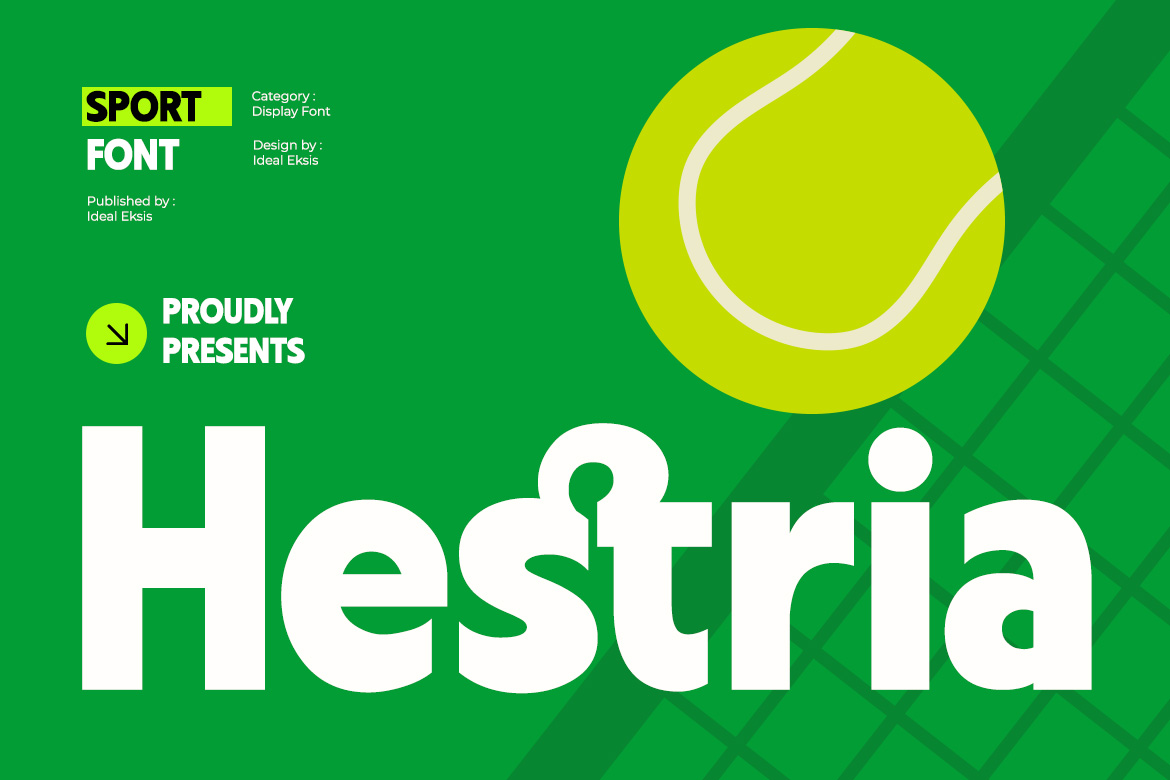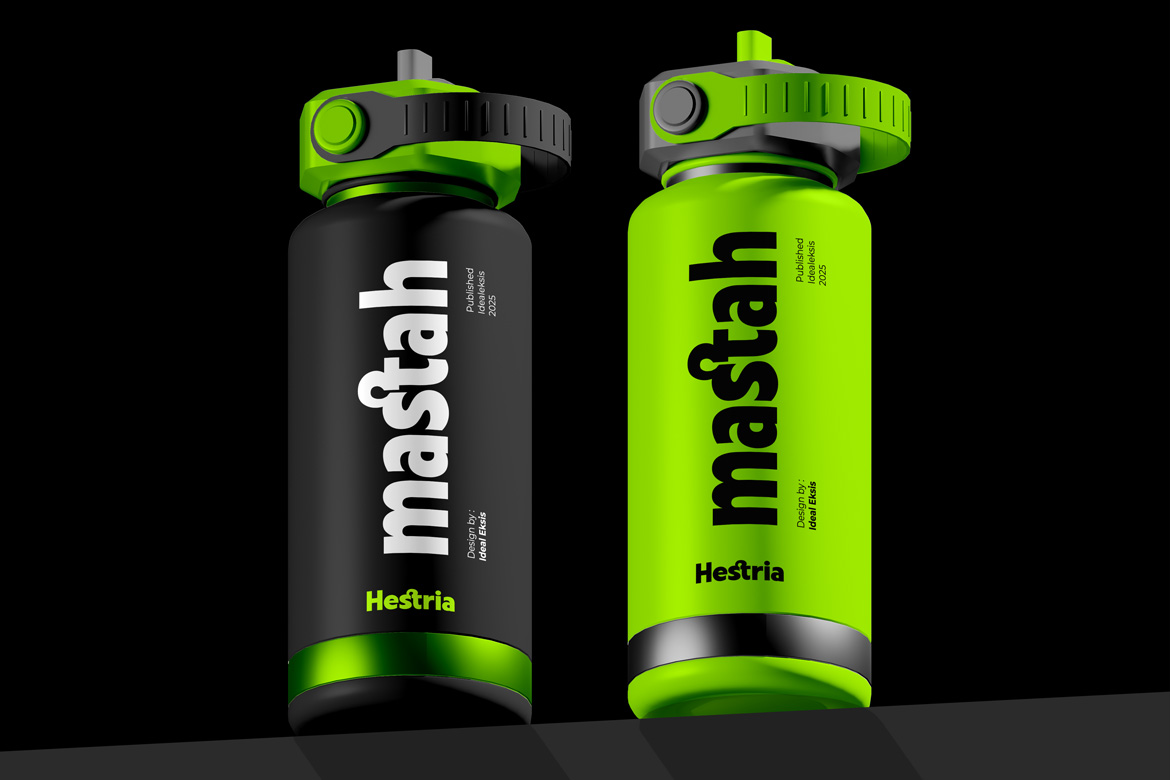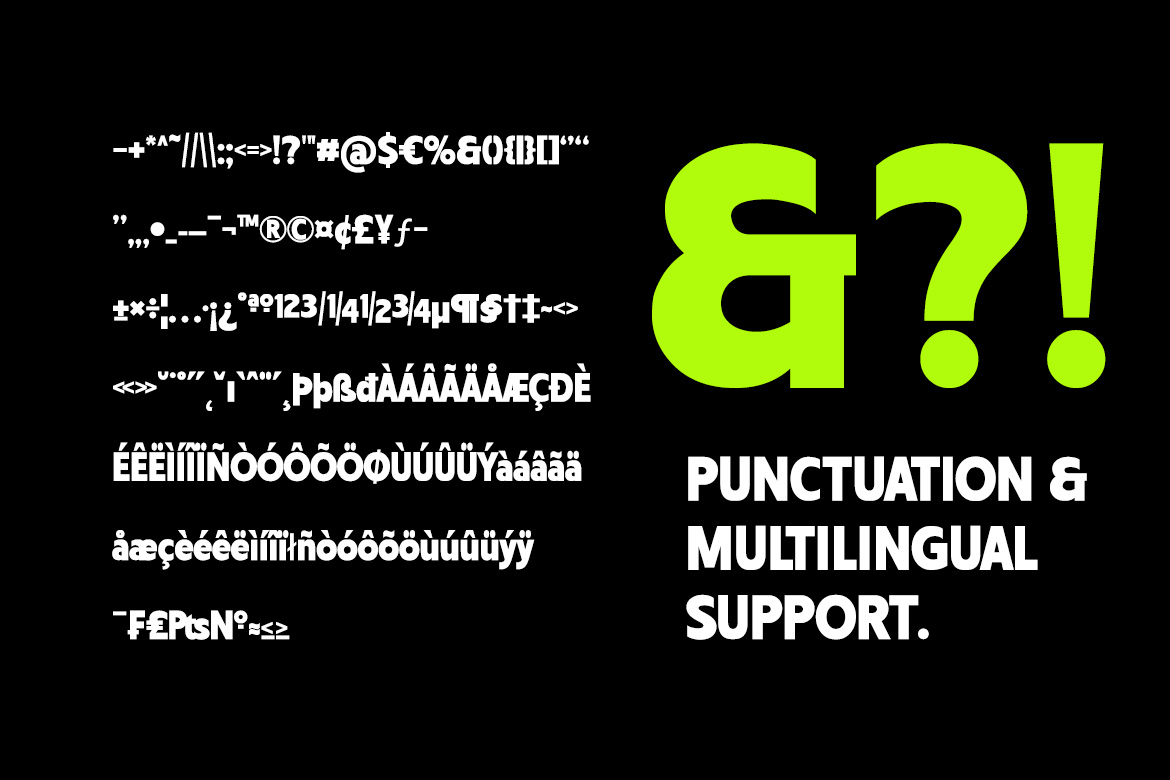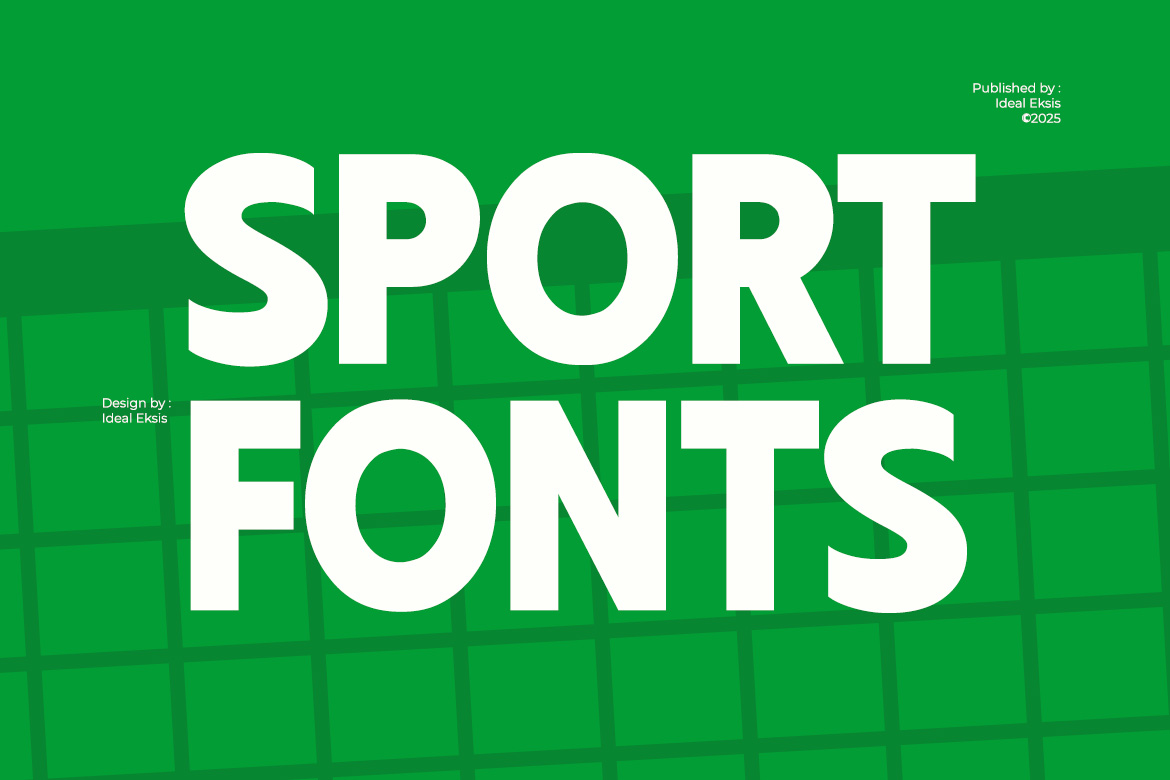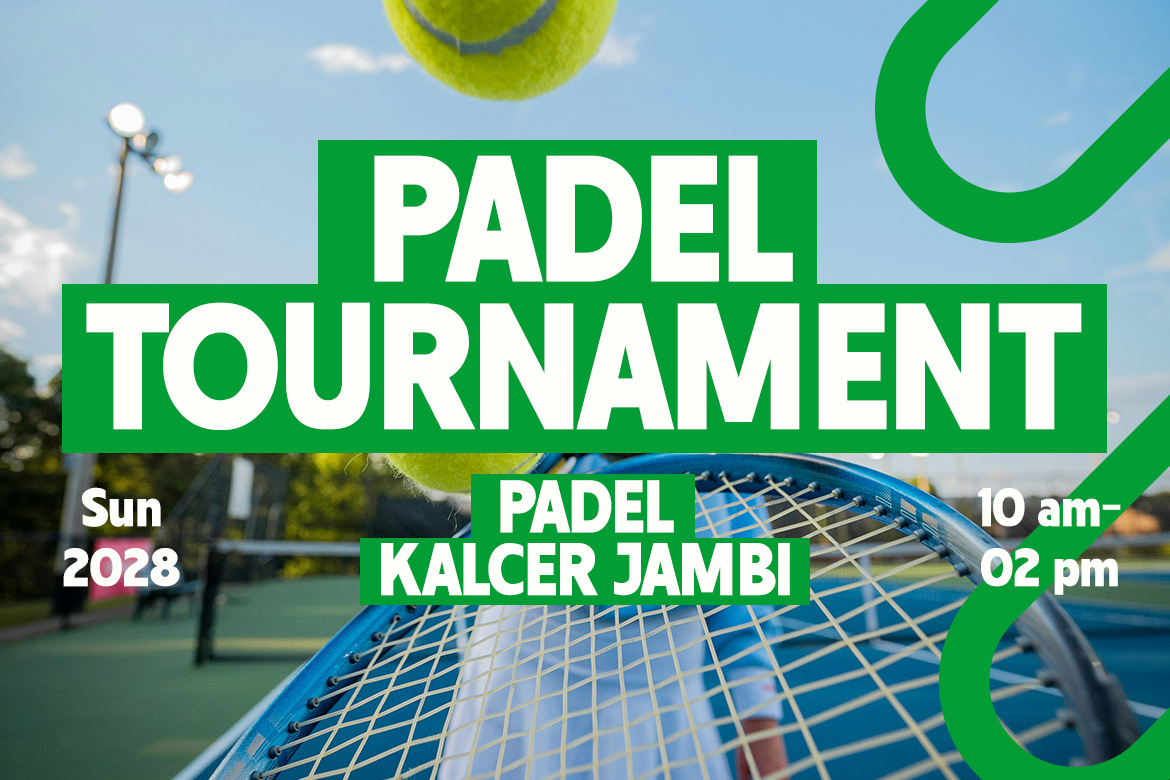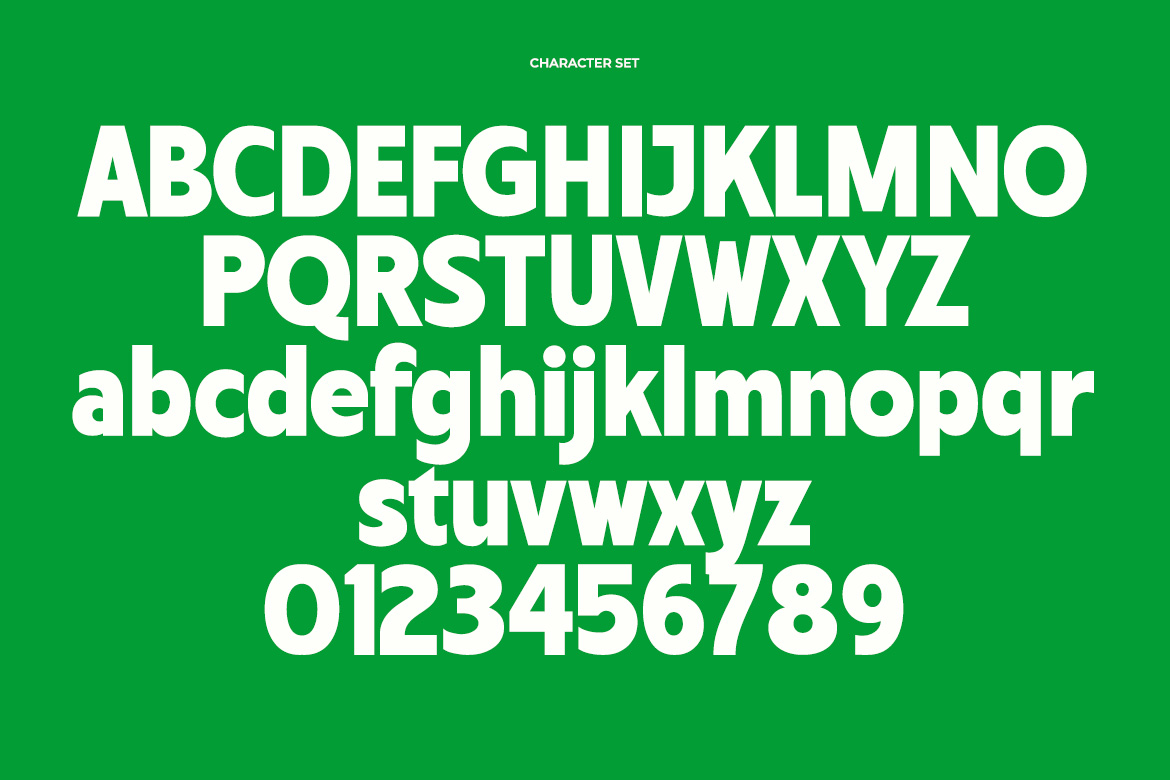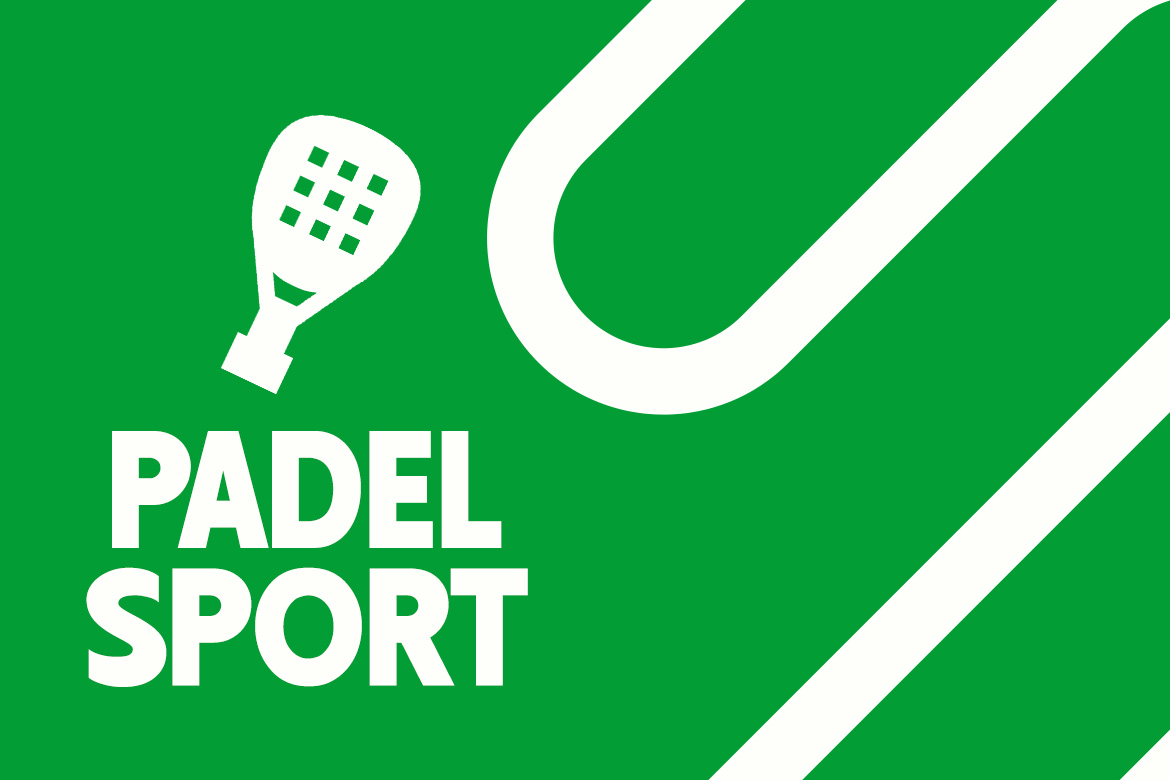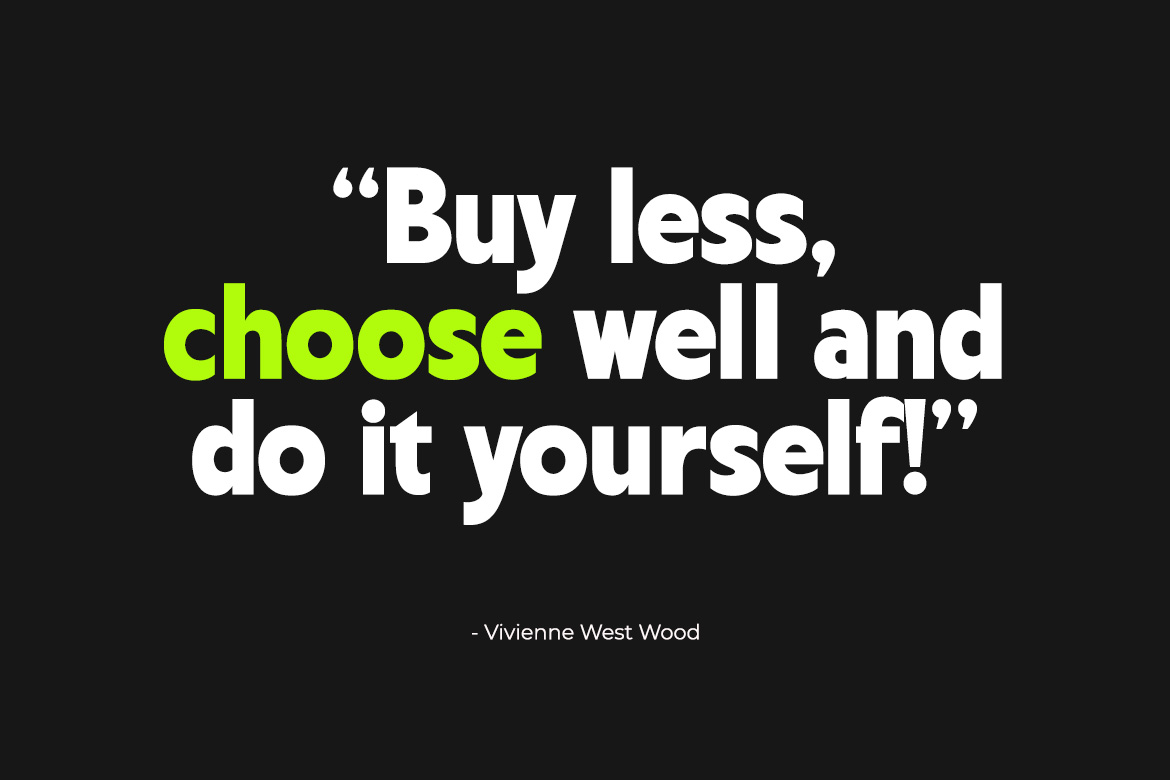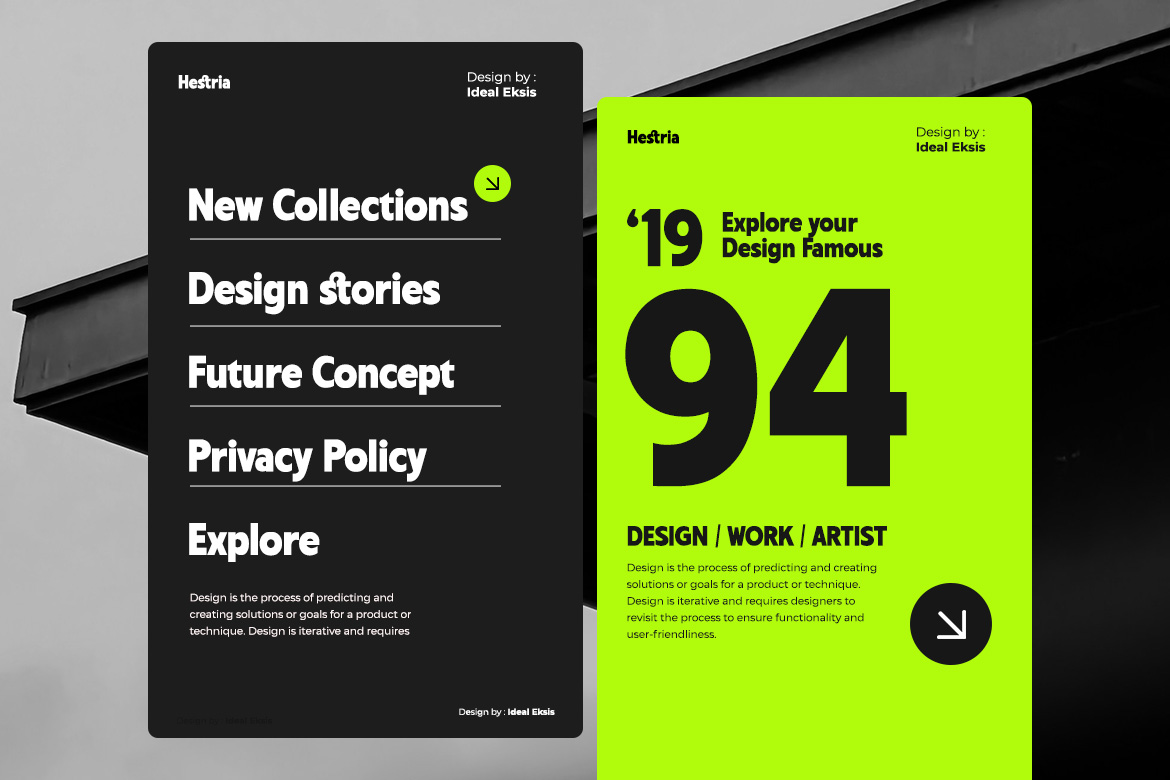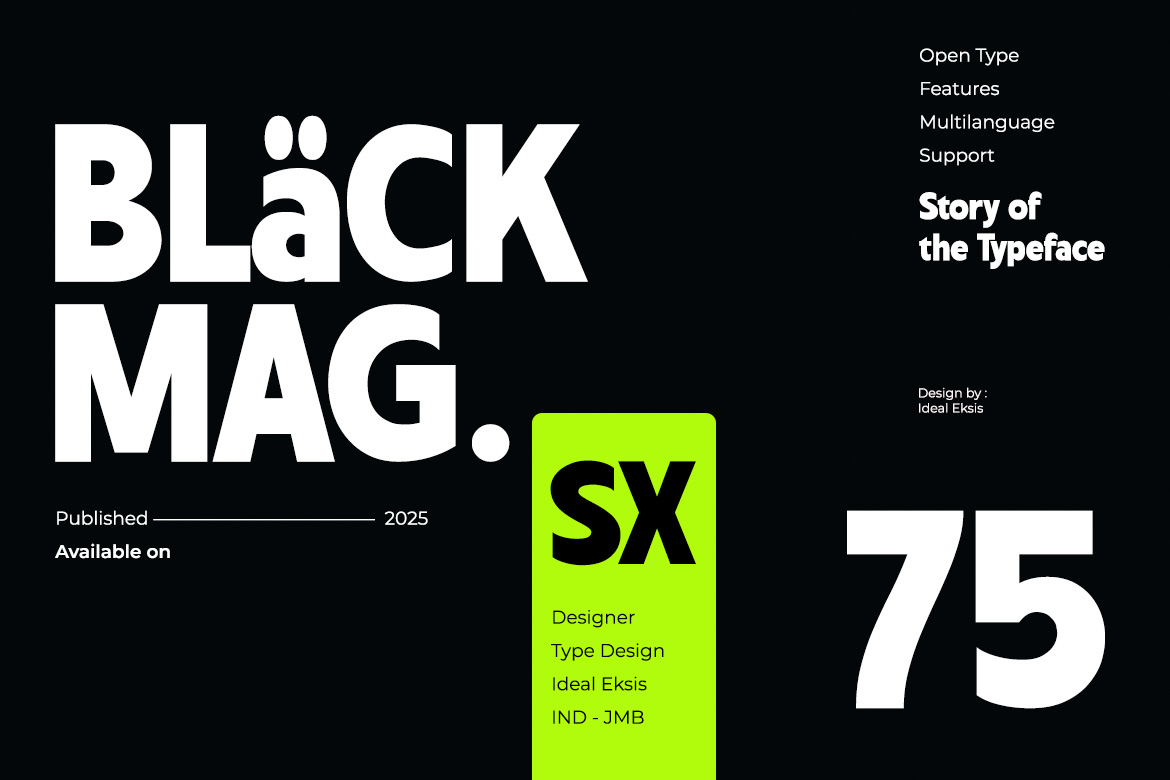
Display typeface · Latin
Hestria
Hestria is a bold modern display font with clean geometric shapes and a futuristic vibe. Its strong and stylish look makes it perfect for logos, posters, branding, headlines, and digital projects that require a contemporary and professional appearance. In Package : OTF TTF WOFF WOFF2 Feature : Uppercase Lowercase Numerals and Punctuation (OpenType Standard) Accents (Supports Multilingual Characters) Easy To Install